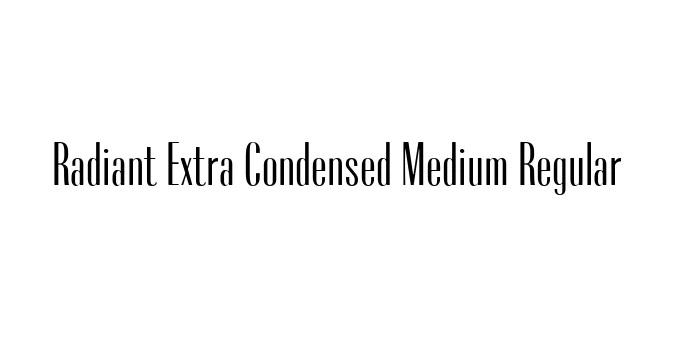
Radiant Extra Condensed Medium Regular
Designed by Robert Hunter Middleton
Radiant was designed by Robert Hunter Middleton for the Ludlow Typograph Company between 1938 and 1940. This typeface represents a unique approach to the sans-serif genre, often categorized as a "stressed" or "humanist" sans-serif because it features high contrast between thick and thin strokes, reminiscent of traditional serif typefaces but without the serifs.
The Extra Condensed Medium variant is particularly notable for its narrow proportions and sophisticated verticality. Historically, it was a staple in mid-20th-century advertising and headline typography, allowing designers to fit high-impact text into narrow horizontal spaces. Today, it remains a favorite for editorial design, luxury branding, and vintage-inspired projects that require an elegant, authoritative presence.
Radiant Extra Condensed Medium Regular Best Uses
Perfect for creating high-impact, space-saving titles in magazines and posters.
Ideal for sophisticated logo designs and luxury brand identities requiring a classic touch.
Great for narrow layouts in print and digital advertisements where readability and style are paramount.
Excellent for use in narrow columns, pull quotes, and fashion-forward publication design.